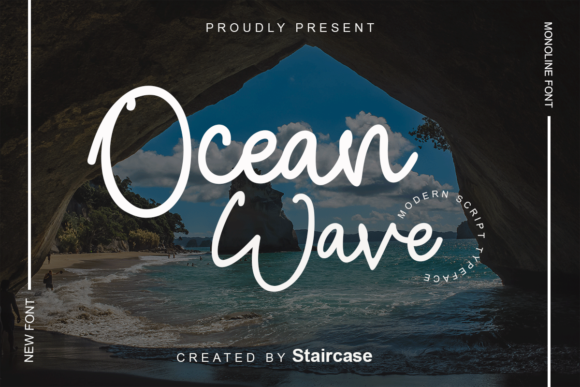
Indulge in the mesmerizing depths of Ocean Wave Font, a captivating script font that will elevate your designs to new heights. Dive into a world of boundless creativity, where each character dances with a unique charm, leaving an unforgettable impression on your audience.
Whether you're crafting captivating logos that command attention or designing branding that radiates personality, Ocean Wave Font is the perfect companion. Its graceful curves and playful flourishes will transform your words into works of art, leaving a lasting impact that speaks volumes.
Embrace the allure of quotes that come alive, captivating your readers with their newfound eloquence. Ocean Wave Font breathes life into your creations, infusing them with a touch of whimsy and sophistication that will leave a lasting impression.
Crafted with precision by the renowned staircasestudio20, Ocean Wave Font is a masterpiece of digital artistry. Its versatility knows no bounds, making it the ideal choice for a myriad of design endeavors. From alluring social media posts to stunning website headers, this font will elevate your projects to new heights of visual appeal.
Don't settle for ordinary when you can immerse yourself in the extraordinary. Dive into the depths of Ocean Wave Font today and let your creativity soar. Let its enchanting script weave a tale of visual brilliance that will captivate and inspire your audience, leaving an unforgettable mark on the digital landscape.